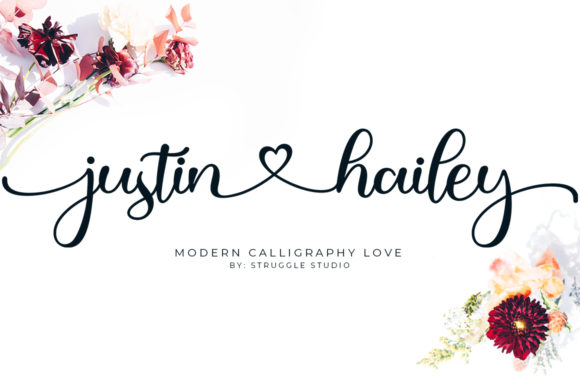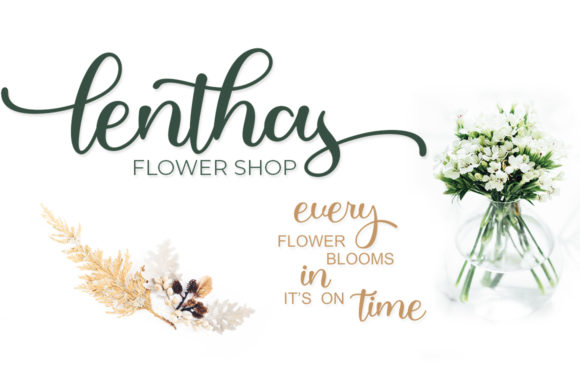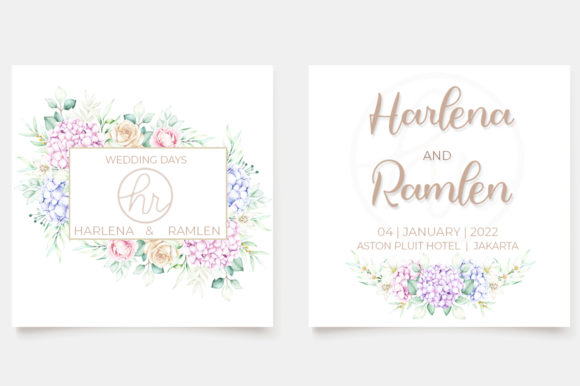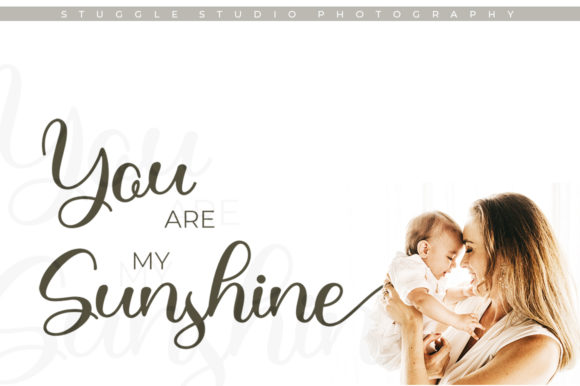
Justin Hailey Modern Font Font
About the Justin Hailey Modern Font Font
Introducing the Justin Hailey Modern Font Font, a beautifully crafted typeface designed to elevate your creative projects. Justin Hailey is an elegant and flowing handwritten font. It is PUA encoded which means you can access all of the glyphs and swashes with ease! It features a varying baseline, smooth lines, gorgeous glyphs and stunning alternates. It maintains its classy calligraphic influences while feeling contemporary and fresh. Fall in love with this font and bring your projects to the highest levels!
Justin Hailey excels in applications requiring a touch of refined elegance, such as wedding invitations, branding for luxury goods, or short-form editorial designs like magazine headings. Its flowing nature also works well on packaging for high-end products, where the script adds a premium feel. However, avoid using it for large blocks of text or UI elements; the varying baseline makes it difficult to read in extended passages.
Pairing Justin Hailey effectively requires considering its inherent elegance. Consider a clean sans-serif like Montserrat or Lato for body copy, providing a strong contrast and excellent readability. Alternatively, a delicate serif like Playfair Display can create a more harmonious, traditional feel. For a bolder contrast, a geometric sans-serif such as Futura could highlight the script’s organic nature.
The overall personality is sophisticated and graceful, with a modern twist that prevents it from feeling overly formal. It’s a font that exudes a sense of understated luxury and quiet confidence.